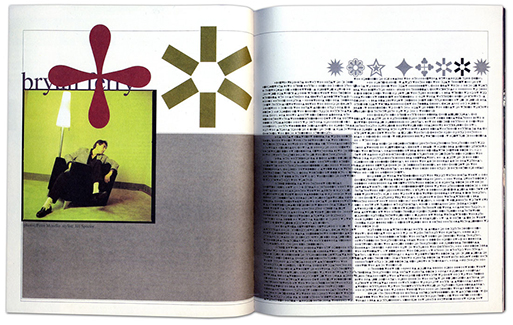
World Emoji Day: How ITC Zapf Dingbats paved the path for the smiley dominance
"Hermann Zapf is for typedesign and calligraphy what Michelangelo was for sculpture or Beethoven was for music", said one of Hermann Zapf’s former students and he was right. Zapf who passed away on June 2015 created around 200 typefaces in numerous alphabets, including Latin, Cyrillic, Arabic and Cherokee yet today we pay tribute to him as the godfather of the emoji.
After all, if this iconic type designer hadn't envisioned ITC Zapf Dingbats -aka the most acclaimed dingbats collection that went on to become the foundation for Unicode’s symbols- the emojis couldn’t have happened.
Zapf was one of the first designers to “predict that computers would both require and make possible digital typeface”.
Marconi, the typeface he designed for Hell-Digiset in 1972 was the first alphabet designed specifically for digital composition. Five years later, Zapf proposed to his friends Aaron Burns, Herb Lubalin and Edward Rondthaler from the International Typeface Corporation (ITC) to publish a typeface of special characters, arrows and symbols. So, he did.
In 1977, Zapf created about 1000 (or over 1200 according to Linotype) sketches of signs and symbols. ITC chose from those a subset of 360 symbols, ornaments and typographic elements based on the original designs, which became known as ITC Zapf Dingbats.
The font first gained wide distribution when ITC Zapf Dingbats, which consists of the subset chosen by ITC, became one of 35 PostScript fonts built into Apple's LaserWriter Plus.
“Symbol fonts such as Zapf Dingbats were especially handy in the early days of personal computing when integrating symbols and graphics into documents was harder” said a font and typography expert and vice president of FontLab, Thomas Phinney, on Zapf’s iconic legacy.
“Because Zapf Dingbats was built into the first PostScript printers by Adobe, it became a standard. Among designers it achieved a legendary status when David Carson made an entire article about Bryan Ferry unreadable by setting it in Dingbats for Ray Gun magazine.”
Today, as the world celebrates it’s annual World Emoji Day, we pay tribute to Zapf who is the inventor of the emoji long before Japan invented them.